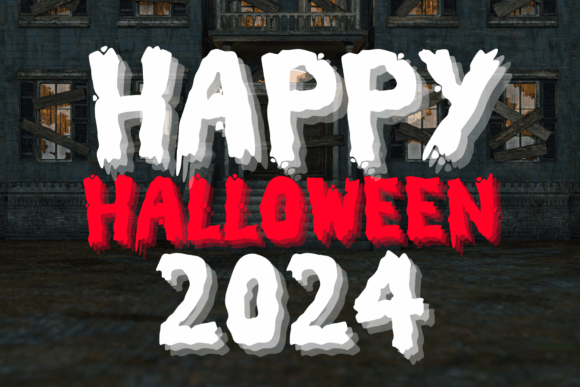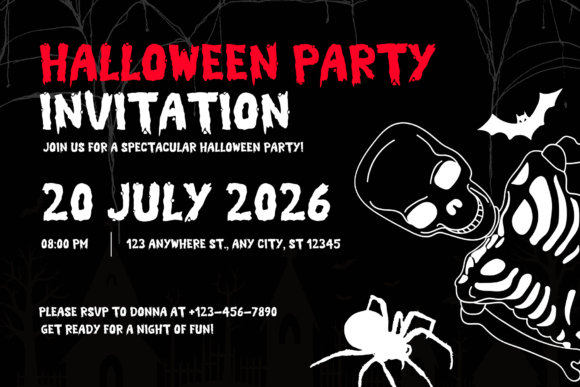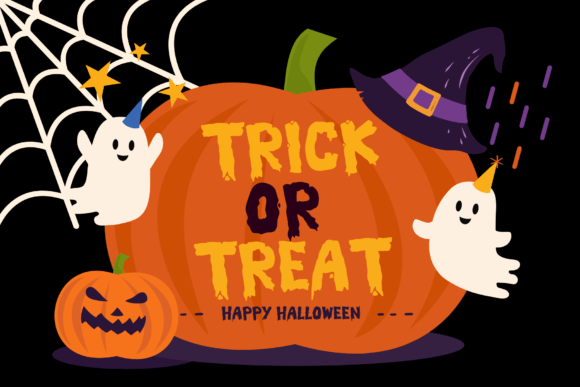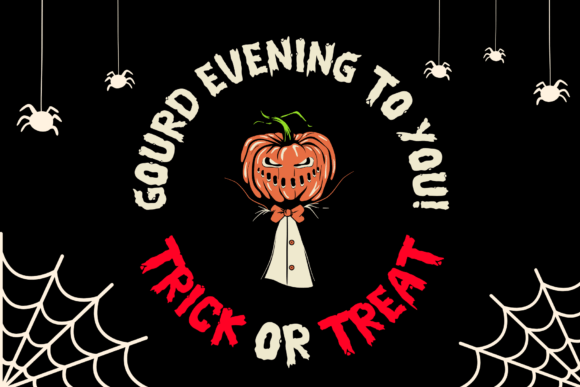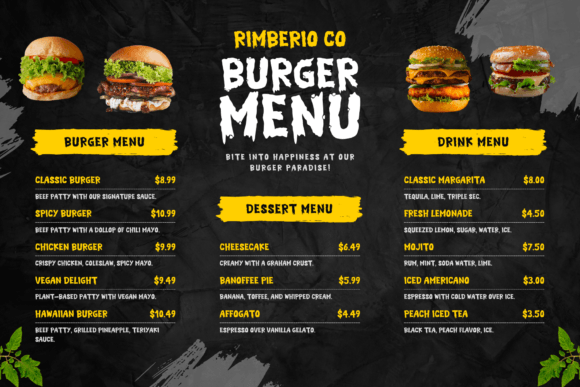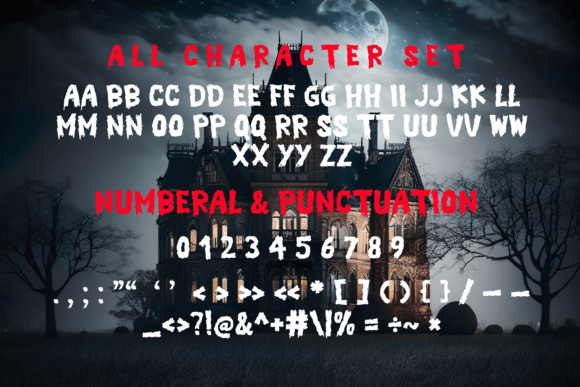
Unleash the Spookiness: Introducing the Ghost Mansion Font
As the witching hour approaches, designers and crafters are on the lookout for the perfect font to add a touch of eerie elegance to their Halloween-themed projects. Look no further than the Ghost Mansion font, a spellbinding typeface that embodies the playfulness and authenticity of the spookiest season. In this article, we’ll dive into the world of Ghost Mansion, exploring its features, uses, and benefits, and uncovering why it’s the perfect choice for all your favorite projects.
A Font that’s to Die For
Ghost Mansion is a Halloween decorative font that’s sure to cast a spell on your audience. Its unique design combines playful and authentic elements, making it an ideal choice for a wide range of applications, from blog posts and logos to branding, ads, invitations, greeting cards, planners, photo albums, decorations, and more. With Ghost Mansion, you can add a touch of spooky sophistication to any design, making it a must-have for designers and crafters looking to create eye-catching and engaging content.
So, what makes Ghost Mansion font so special? Here are just a few of its key features and benefits:
- Playful and Authentic Design: Ghost Mansion’s unique design combines playful and authentic elements, making it perfect for Halloween-themed projects.
- Versatile: Use Ghost Mansion for a wide range of applications, from digital designs to print materials.
- Easy to Use: Add Ghost Mansion to any design with ease, and enjoy the results!
- High-Quality: Ghost Mansion is a high-quality font, ensuring crisp and clear results in any design.
Ideas for Using Ghost Mansion Font
The possibilities are endless when it comes to using Ghost Mansion font. Here are a few ideas to get you started:
- Halloween Blog Posts: Add a touch of spookiness to your Halloween blog posts with Ghost Mansion font.
- Logo Design: Create a hauntingly beautiful logo for your business or brand with Ghost Mansion.
- Branding and Advertising: Use Ghost Mansion to create eye-catching branding and advertising materials that will grab your audience’s attention.
- Invitations and Greeting Cards: Add a touch of spooky elegance to your Halloween invitations and greeting cards.
- Planners and Photo Albums: Use Ghost Mansion to create spooky and fun planners and photo albums.
- Decorations: Add a touch of eerie elegance to your Halloween decorations with Ghost Mansion font.
Why Choose Ghost Mansion Font?
With so many fonts to choose from, why choose Ghost Mansion? Here are just a few reasons:
- Unique Design: Ghost Mansion’s unique design sets it apart from other fonts, making it perfect for Halloween-themed projects.
- Easy to Use: Ghost Mansion is easy to use, making it perfect for designers and crafters of all skill levels.
- High-Quality: Ghost Mansion is a high-quality font, ensuring crisp and clear results in any design.
- Versatile: Use Ghost Mansion for a wide range of applications, from digital designs to print materials.
In conclusion, Ghost Mansion font is the perfect choice for designers and crafters looking to add a touch of spooky elegance to their Halloween-themed projects. With its unique design, versatility, and ease of use, Ghost Mansion is sure to cast a spell on your audience. So why wait? Add Ghost Mansion to your font collection today, and get ready to unleash the spookiness!
Whether you’re a seasoned designer or a crafter looking for a new font to add to your arsenal, Ghost Mansion is sure to impress. So go ahead, get creative, and show off your spooky side with Ghost Mansion font!